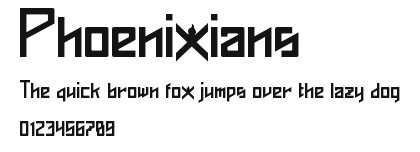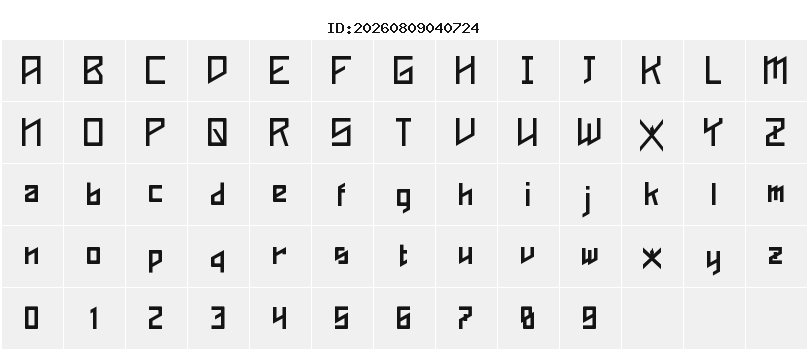
Phoenixians Preview
• Font Name: Phoenixians
• Full Font Name: Phoenixians
• Designer: Neale Davidson
About Phoenixians.ttf
Phoenixians.ttf is a modern, elegant sans-serif font designed for ultimate readability and visual harmony. Perfect for branding, headlines, web design, and print materials.